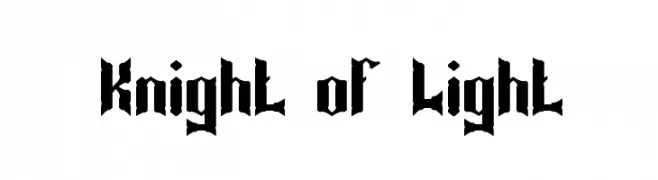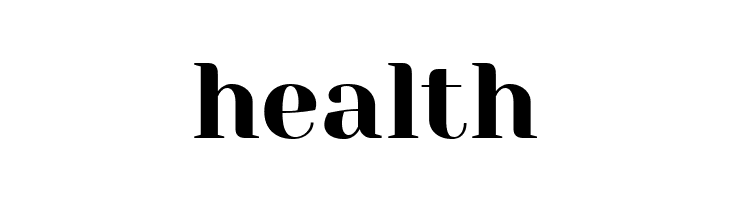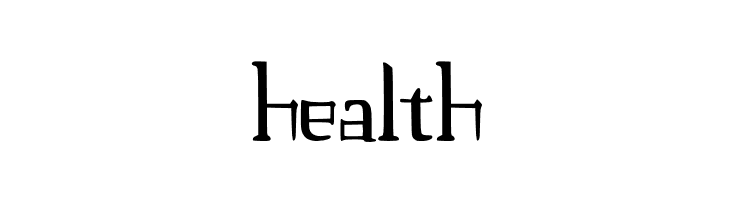
A bold, gothic-inspired font with sharp angles and dramatic serifs.
A bold, ornate Blackletter font with a Gothic, medieval style.
A classic serif font with elegant strokes and refined serifs.
A playful handwritten font with thin, irregular strokes.
A bold Gothic font with sharp, angular lines and a medieval flair.
An ornate Blackletter font with intricate detailing and a medieval aesthetic.
A bold, medieval-inspired font with dramatic serifs and a Gothic flair.
A medieval and gothic style font with ornate and dramatic letterforms.
A bold, geometric font with modern, clean lines and unique angular elements.
A modern, geometric font with clean lines and a minimalist aesthetic.
A medieval-inspired font with ornate, gothic letterforms and sharp serifs.
An ornate Blackletter font with intricate, medieval-style letterforms.
A bold, italicized font with a medieval uncial influence and high contrast strokes.
A playful, handwritten font with tall, narrow letters and consistent stroke width.
A cursive, elegant font with a flowing, handwritten style.
An ornate, medieval-inspired font with decorative elements and a gothic aesthetic.
A bold, impactful font with strong strokes and a classic-modern style.
A modern, clean sans-serif font with uniform strokes and excellent readability.
A bold, geometric font with a modern and structured design.
A modern, geometric font with clean lines and a minimalist style.
A whimsical and artistic font with flowing, interconnected strokes.
A whimsical and artistic font with dynamic curves and angles.
A classic serif font with elegant strokes and a light weight.
A collection of medieval-themed symbols and icons with intricate designs.
An ornate, gothic-style font with intricate, angular designs.
A lively and elegant script font with smooth, flowing connections.
A bold, textured script font with a vintage, hand-painted style.
A dynamic and flowing script font with elegant cursive letterforms.
A bold, blackletter-style font with sharp, angular strokes and a medieval aesthetic.